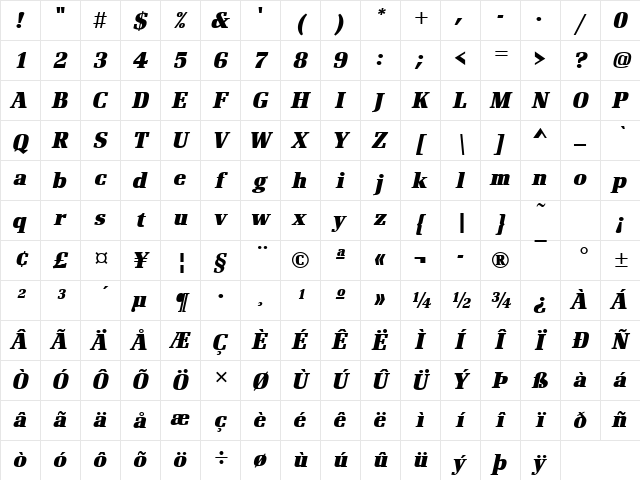
RenaultTBol Italic
RenaultTBol Family
RenaultTBol Italic
Design Context for RenaultTBol
RenaultTBol is a composed and adaptable typeface that performs quietly and consistently across a wide range of design contexts. The slanted form adds forward momentum and visual energy.
Pro Tip: Use RenaultTBol for emphasis, pull quotes, and subheadings where its slanted energy can add rhythm to the layout.